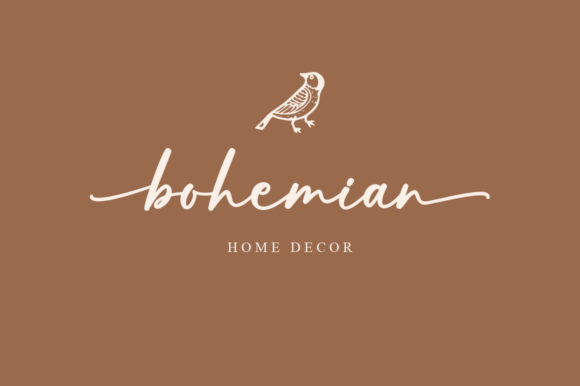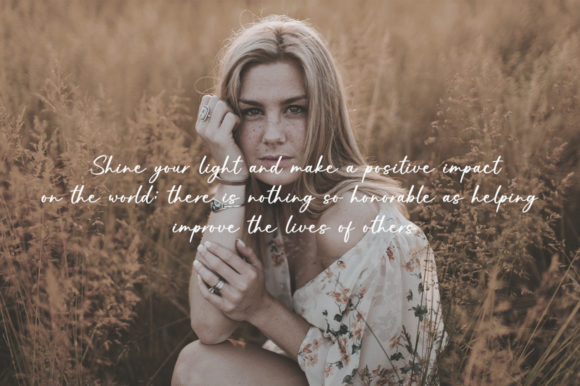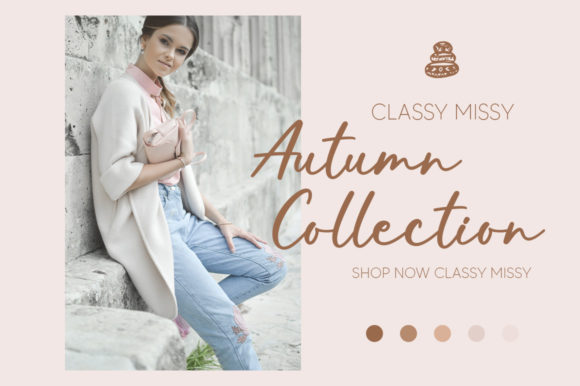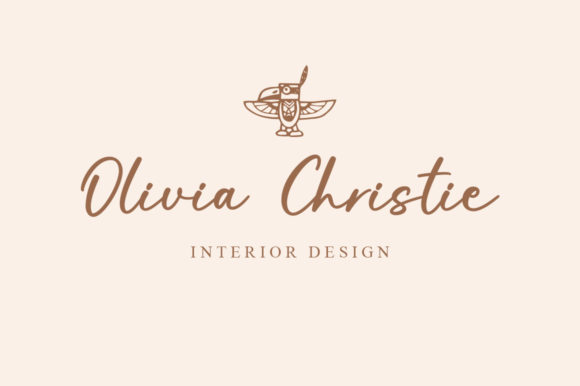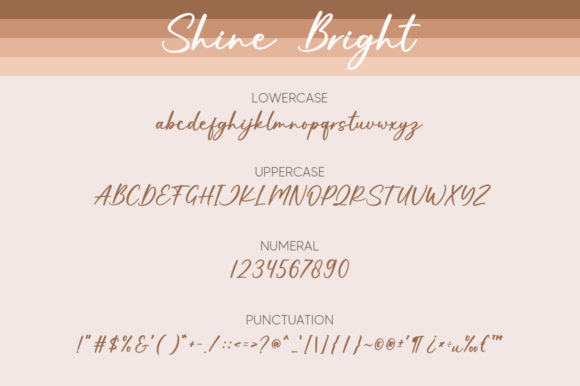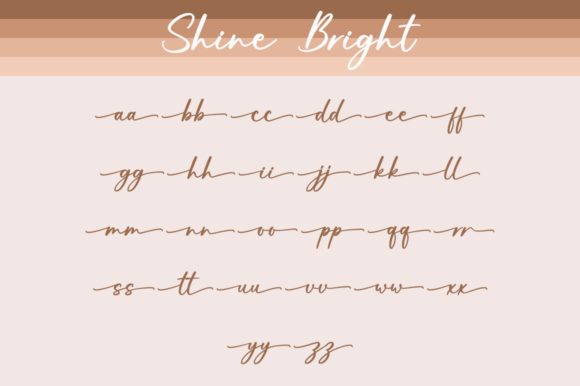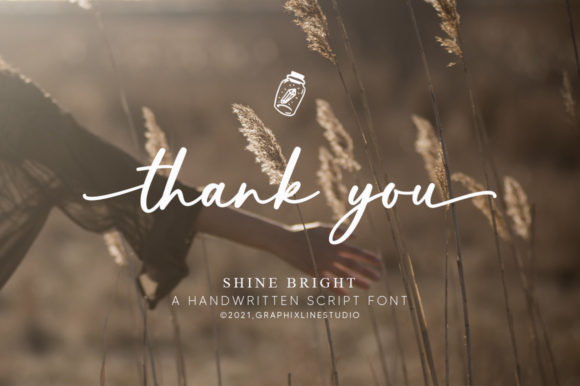
Shine Bright Font
About Shine Bright Font
Shine Bright is a lovely and timeless handwritten font. It is the best choice for creating eye catching logos, branding and quotes. This font is PUA encoded which means you can access all of the glyphs and swashes with ease!